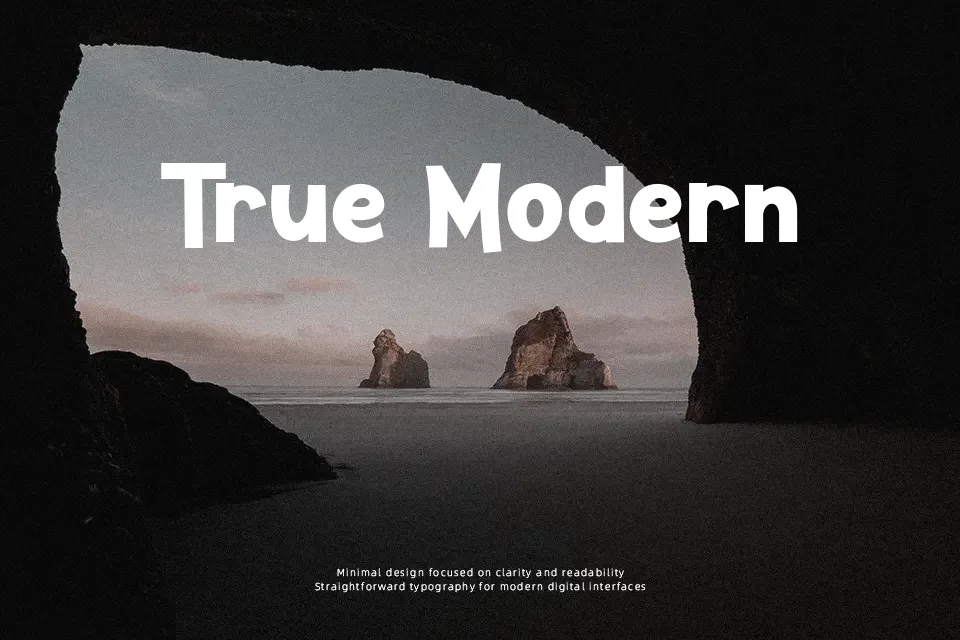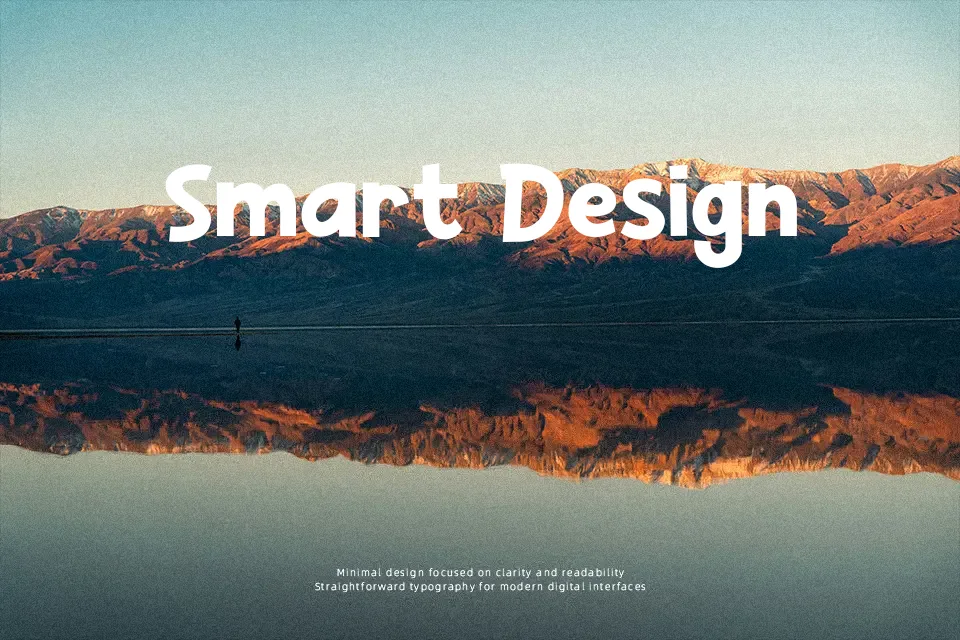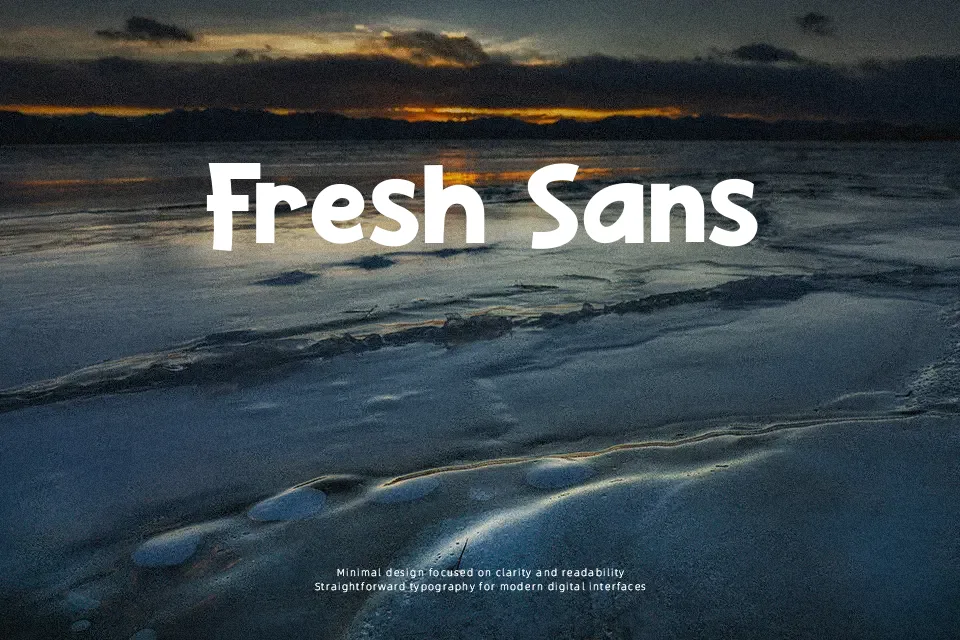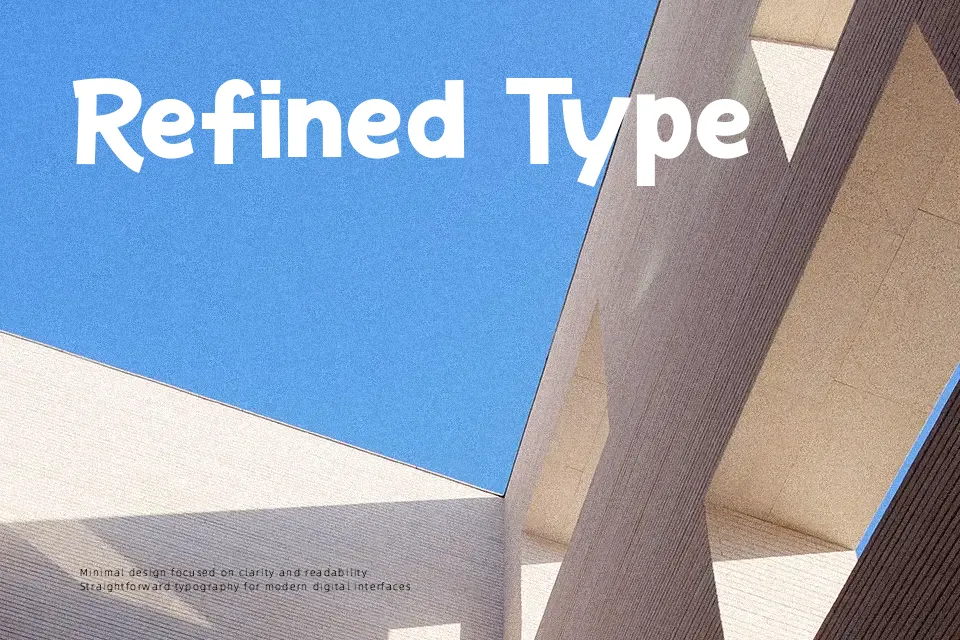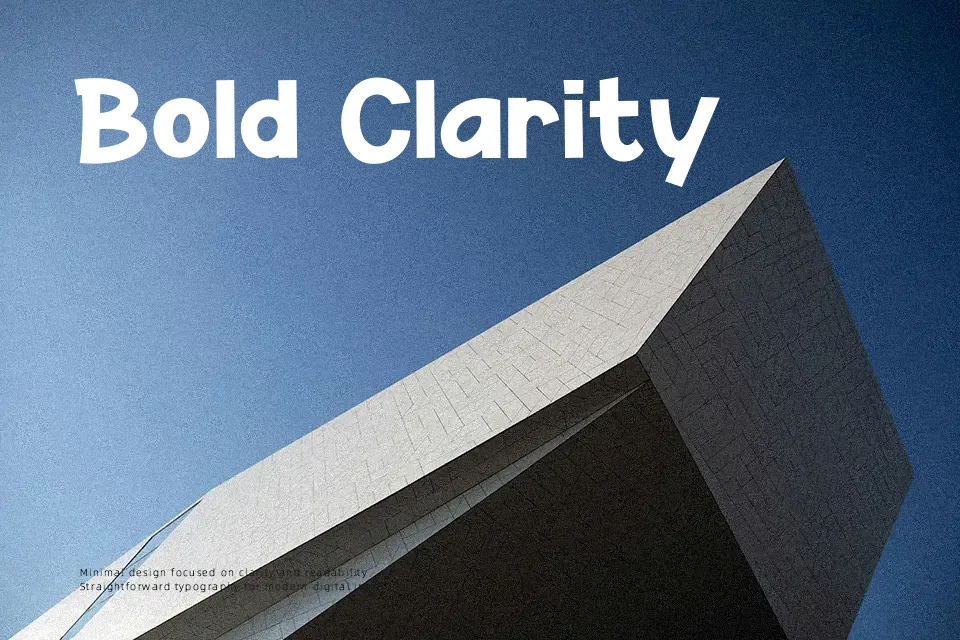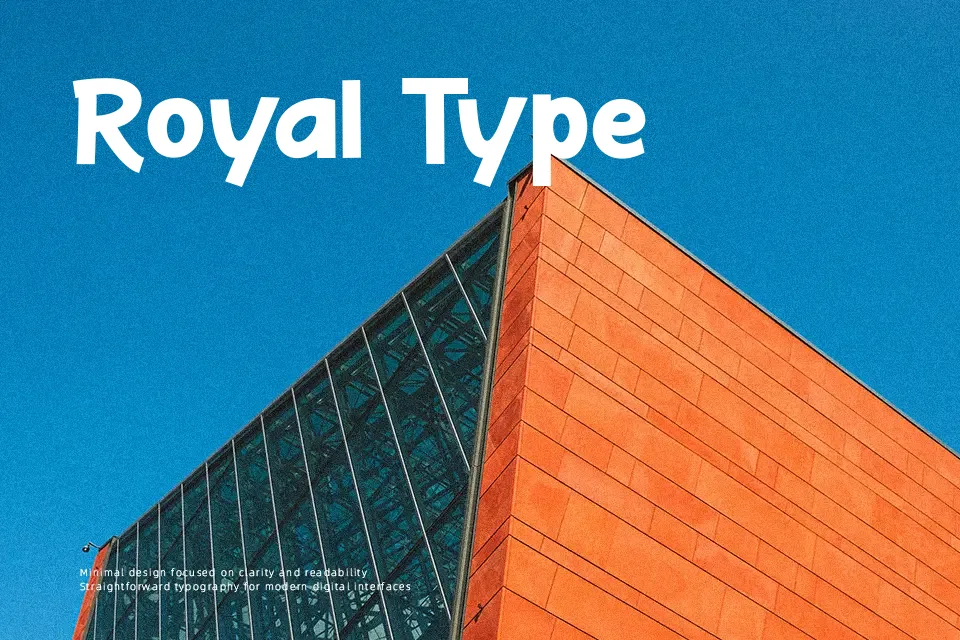
Cheese Toast Font
Cheese Toast Font presents thick, plump character shapes defined by bulbous curves, soft terminals, and virtually no stroke modulation. The uppercase and lowercase glyphs share a consistent, inflated volume with compact inter-character spacing that locks short display words together tightly. Proportions remain uniform across the set, giving headlines and badge graphics a bouncy, animated rhythm. At larger sizes, the bold silhouettes deliver immediate recognition on merchandise, candy wrappers, and animated title sequences. However, the dense geometry and tight interior counters severely restrict legibility in extended text settings. The letterforms lose definition rapidly when scaled down, making the design unsuited for small captions or multi-line paragraphs.
Best For: snack food packaging, children’s book titles, animated video graphics, toy branding
Not Ideal For: long paragraph text, legal contracts, dense spreadsheet data, mobile interface body copy
Perfect for branding, headline, and kids, with a bold and cartoon style.